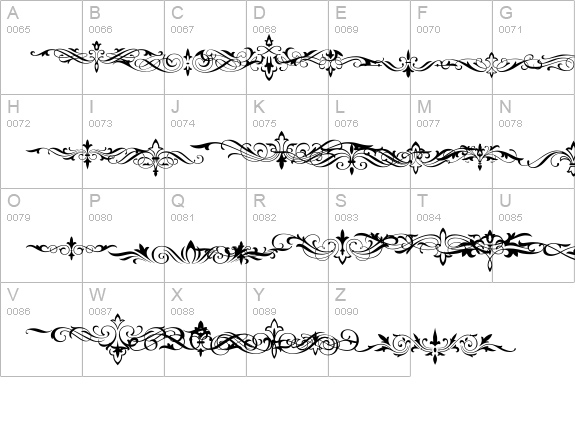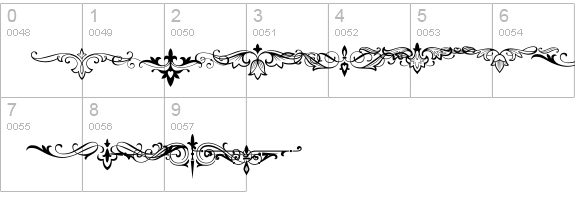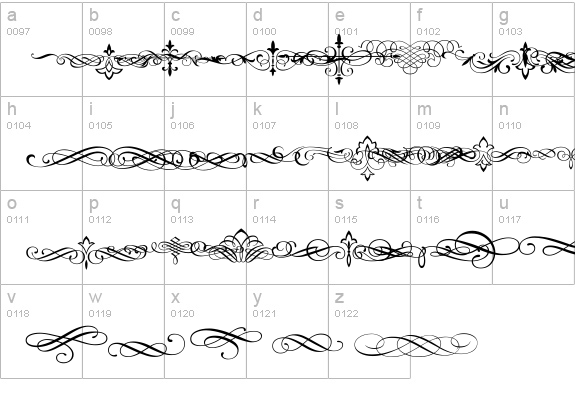
NatVignetteOne Font Details
Introducing NatVignetteOne font - a stunning display typeface that effortlessly blends elegance and versatility. With its intricate details and delicate curves, this font exudes a sense of sophistication and charm. Perfect for adding a touch of class to your designs, NatVignetteOne is sure to captivate attention and leave a lasting impression. What sets NatVignetteOne apart is not only its exquisite design but also its accessibility - it is available for free download at FontsMarket.com. This means you can easily incorporate this beautiful font into your creative projects without any hassle. Whether you're working on invitations, branding, posters, or any other design project, NatVignetteOne is the perfect choice to elevate your work to the next level. Download NatVignetteOne today from FontsMarket.com and unleash your creativity with this elegant and versatile font. Let NatVignetteOne be the standout element in your designs, making them truly unforgettable.